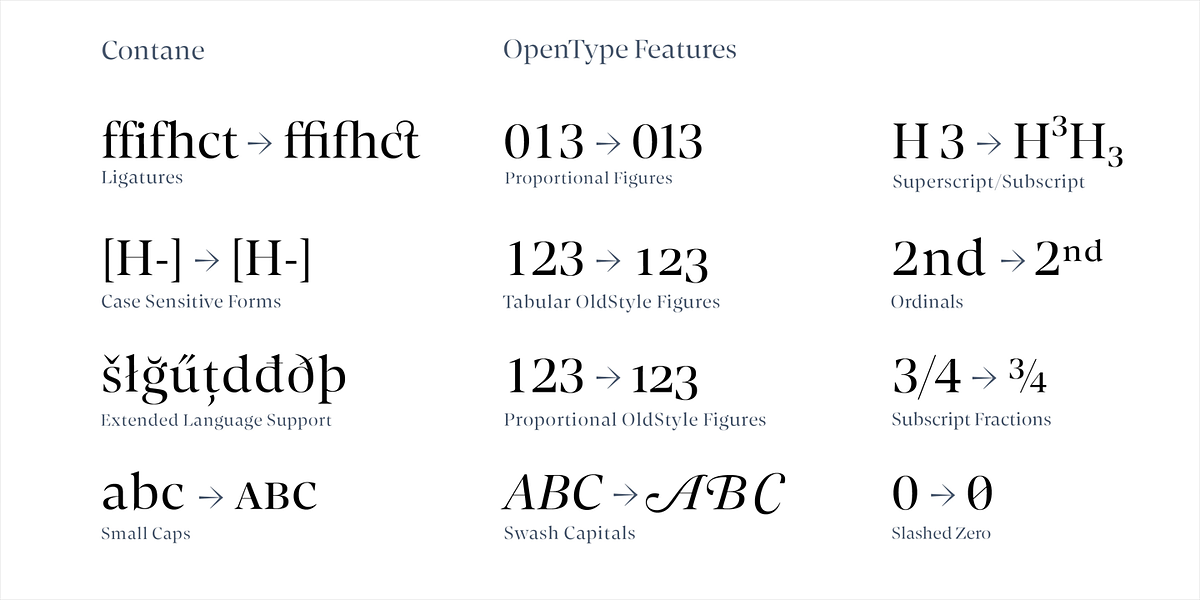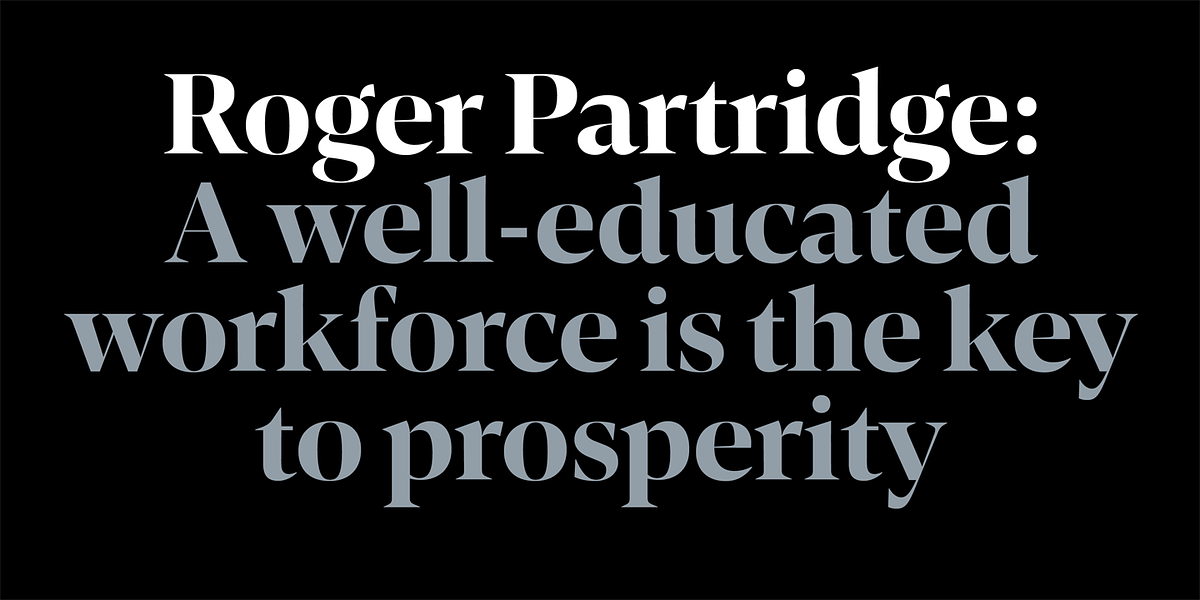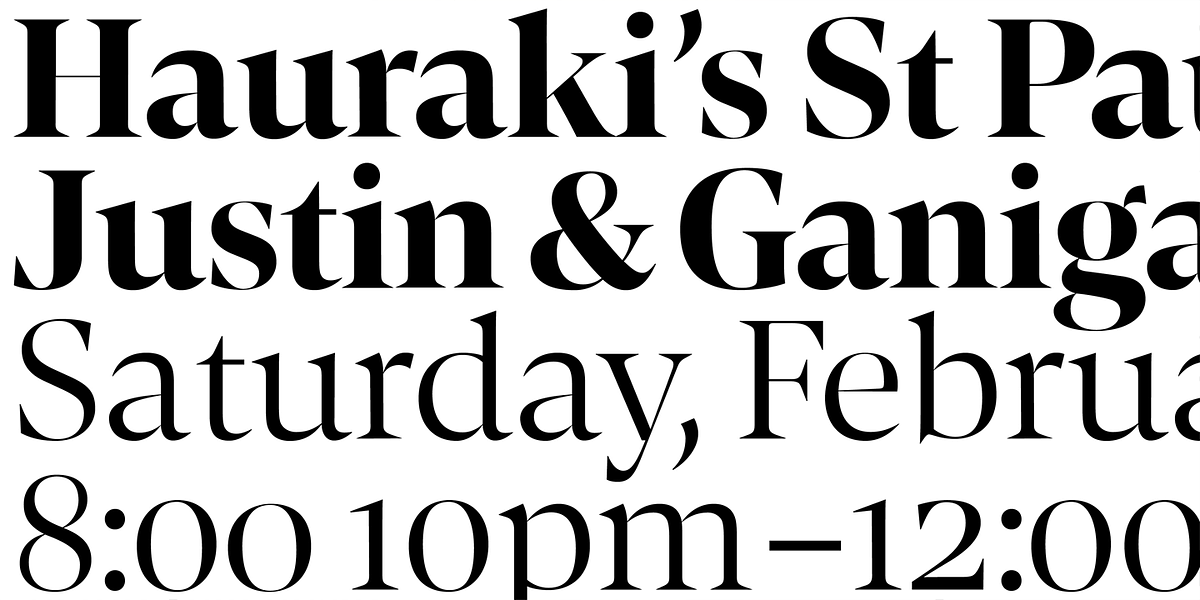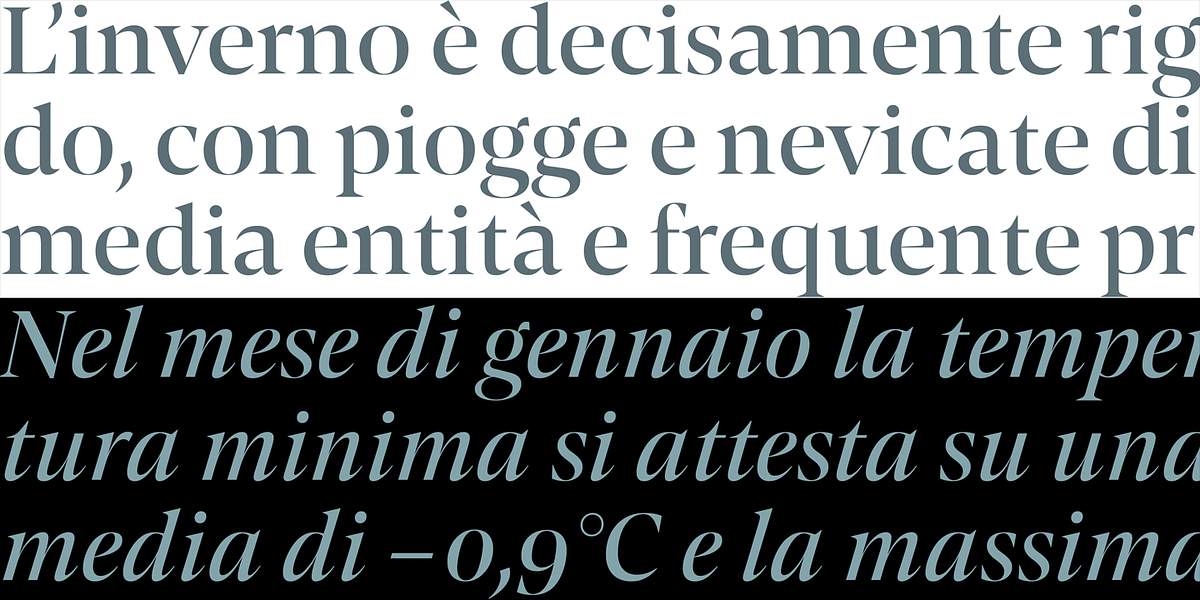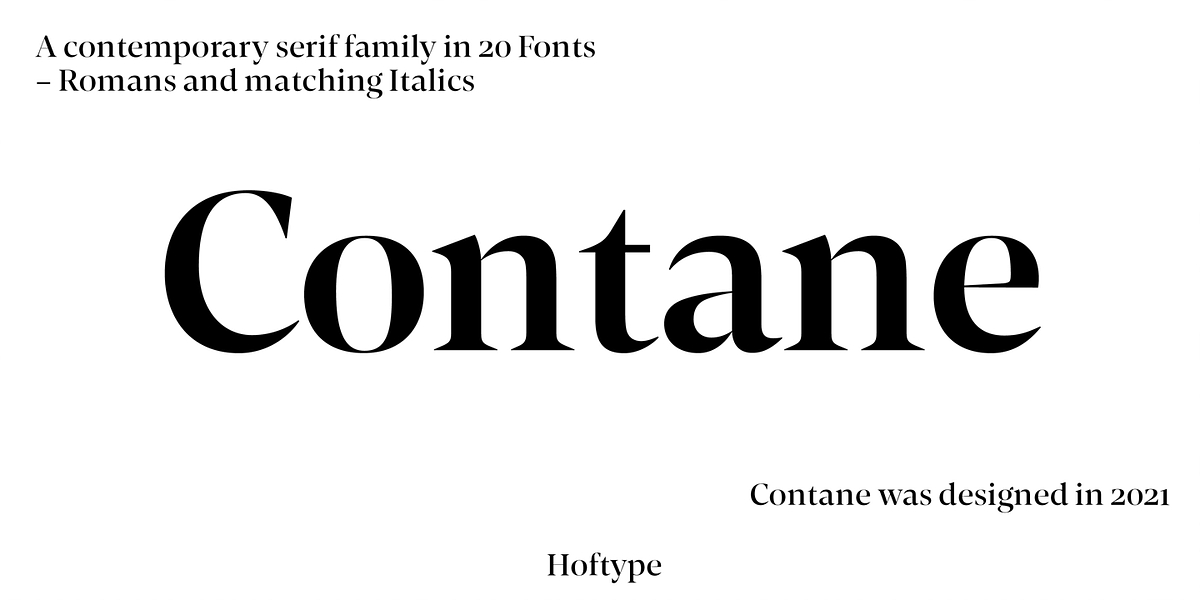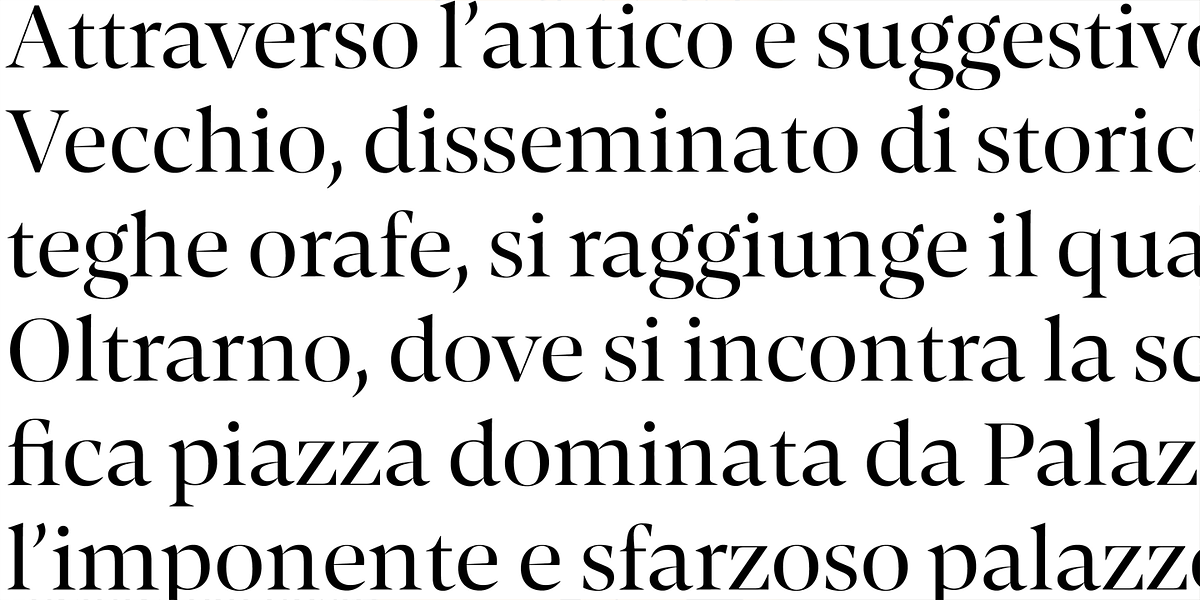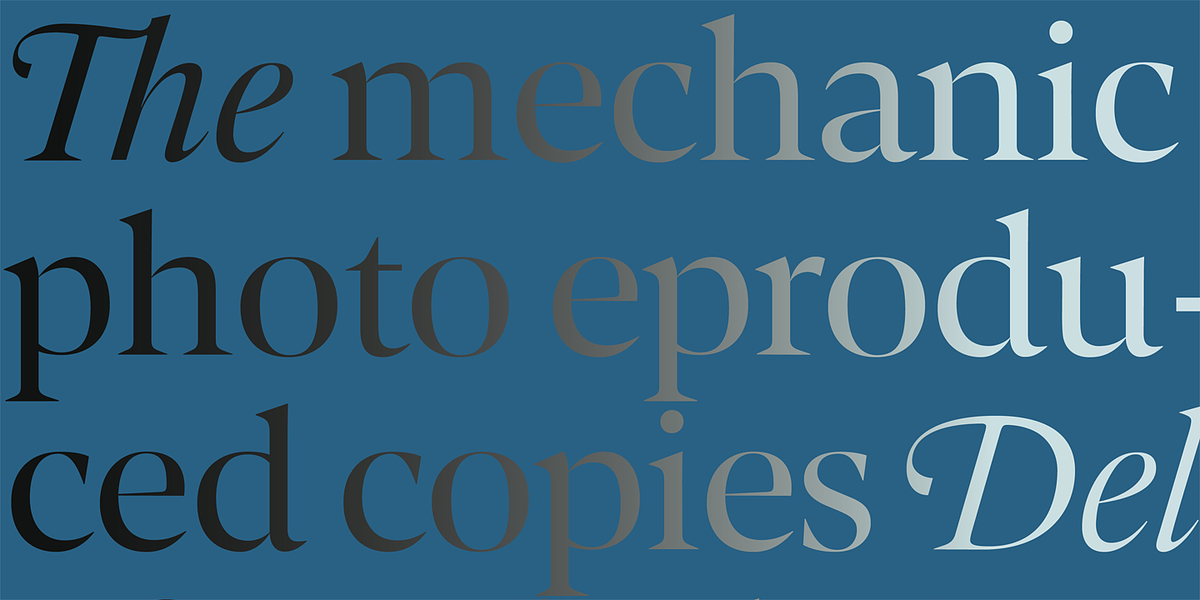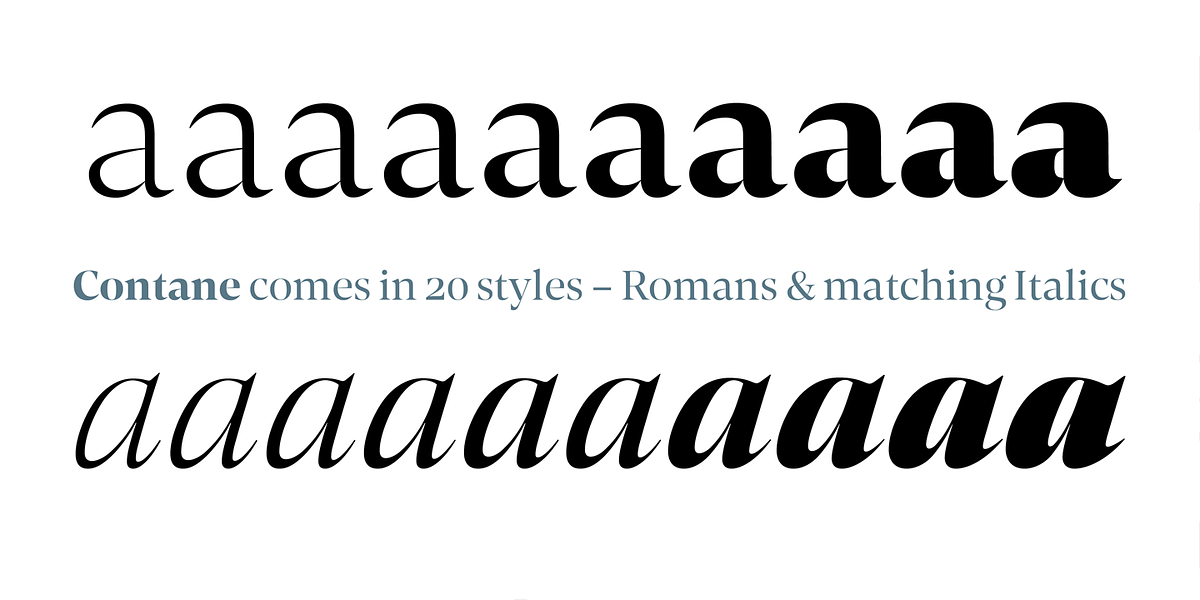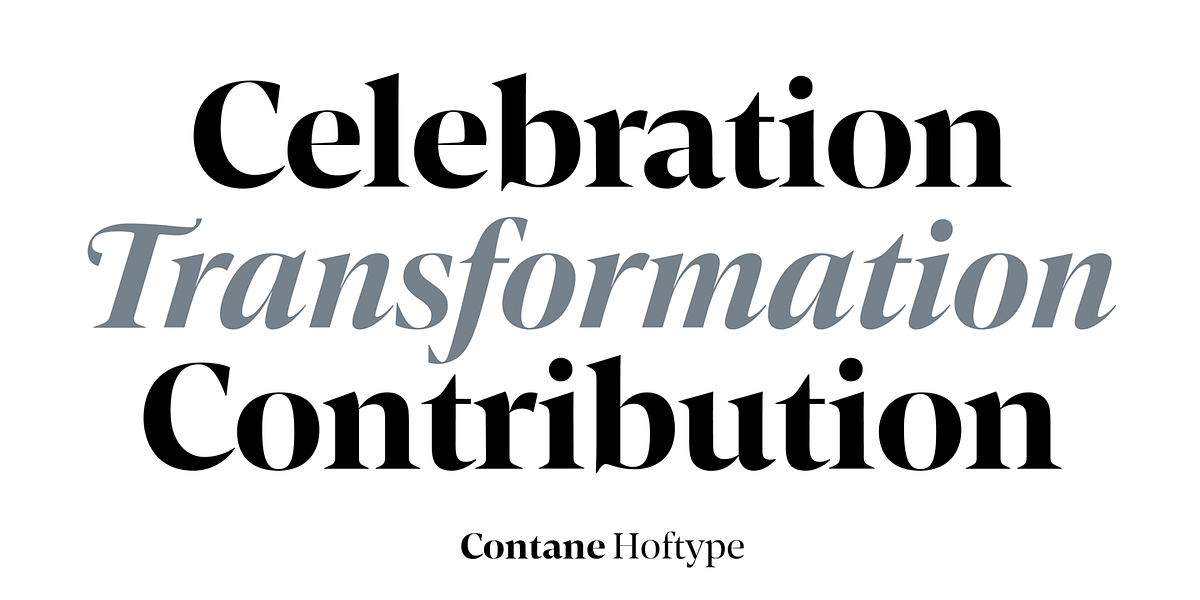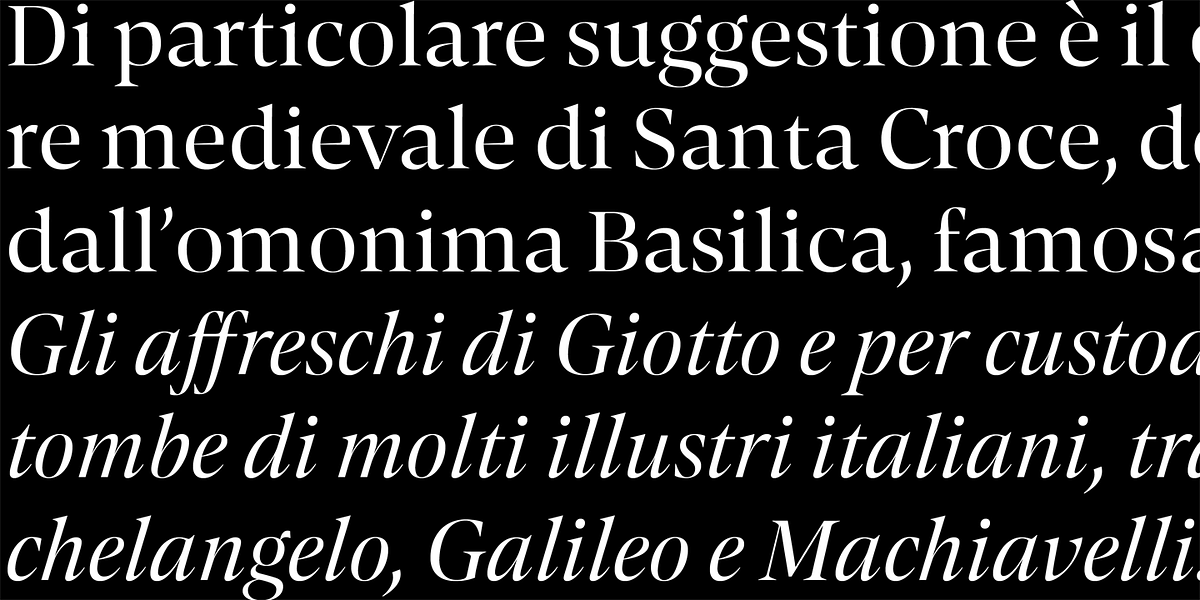
Contane
Contane is a serif font designed for display purposes. It boasts a classical aesthetic with high contrast between thick and thin strokes, giving it a noble and elegant appearance. While visually striking, it remains objective and clean, making it suitable for a range of applications from headlines and editorials to smaller text blocks. The font offers 20 styles providing a fine graduation of weights, and includes features like small caps, ligatures, various numeral styles, and alternate characters.